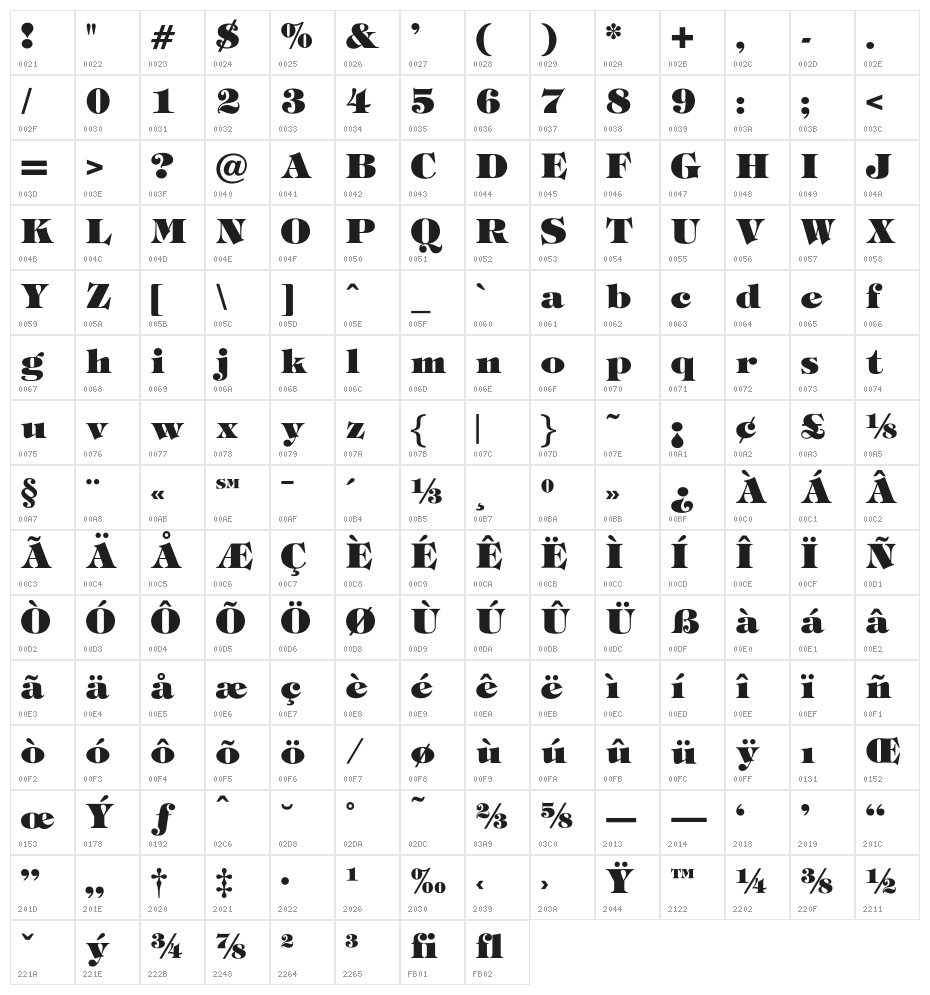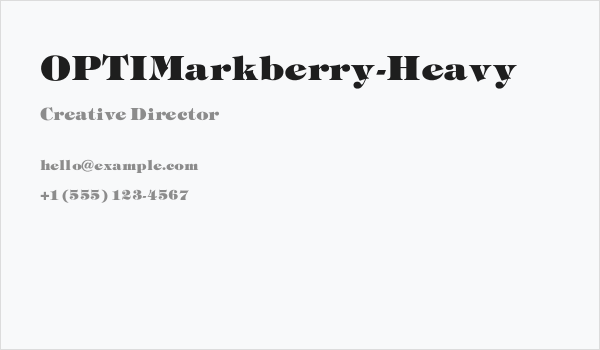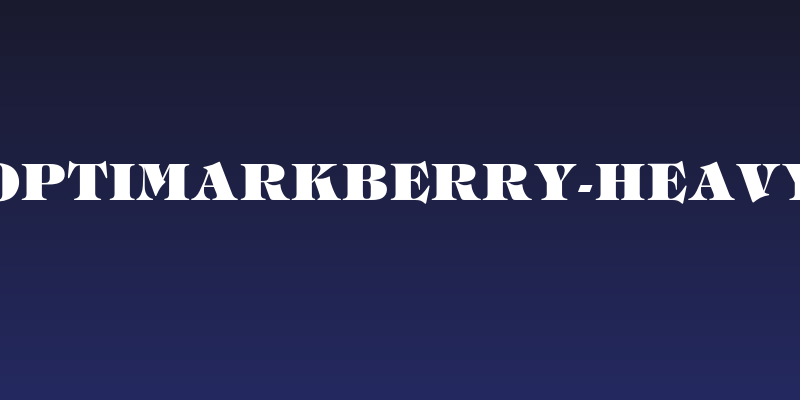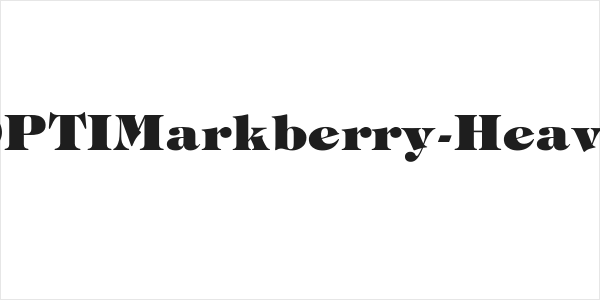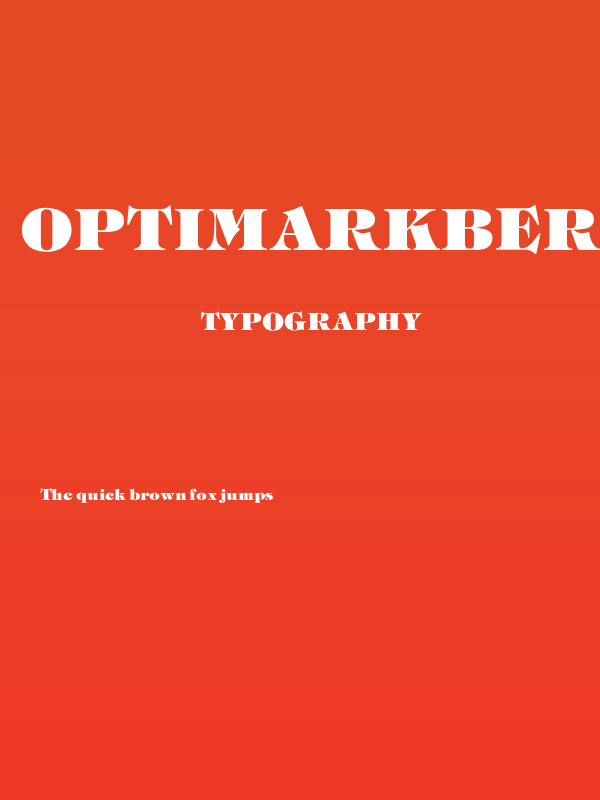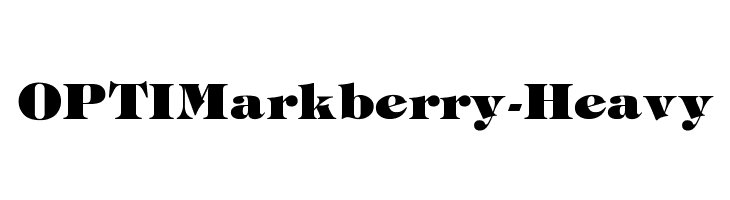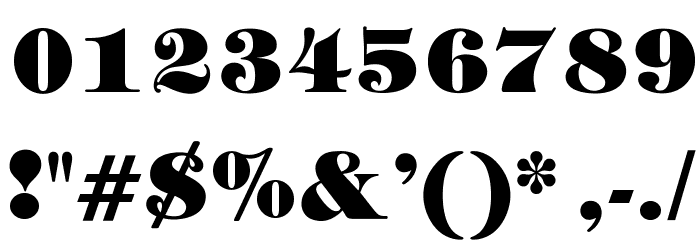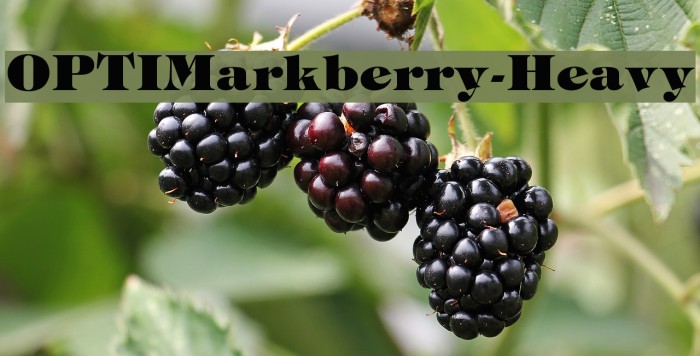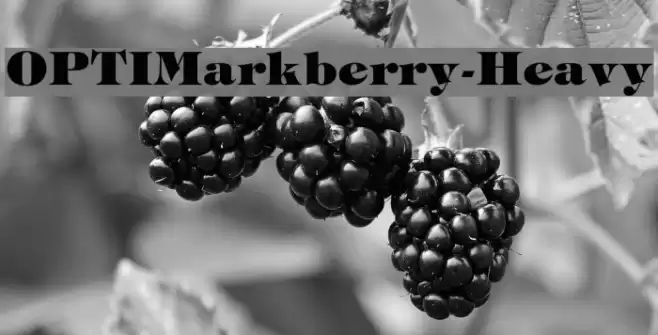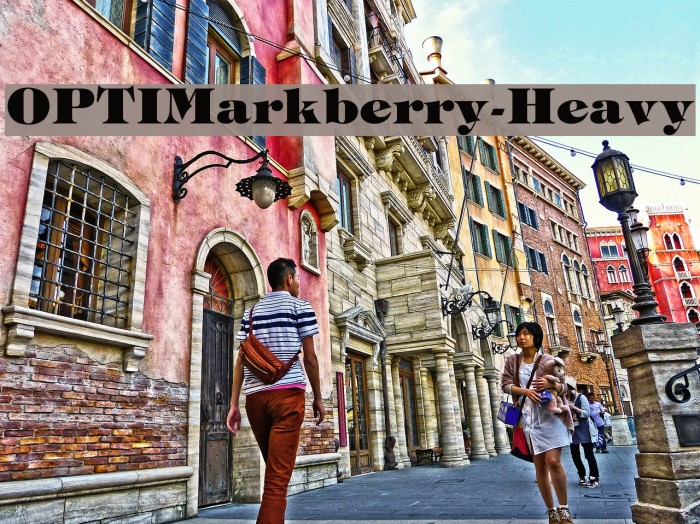
OPTIMarkberry-Heavy Font
OPTIMarkberry-Heavy Description
This font features a bold and striking design with thick, heavy strokes that convey a sense of strength and impact. The characters are crafted with a high contrast between thick and thin lines, giving them a dynamic and eye-catching appearance. The serifs are pronounced and angular, adding a touch of elegance and sophistication. The overall style is reminiscent of vintage typefaces, yet it maintains a modern flair that makes it suitable for contemporary use. The uppercase and lowercase letters are well-balanced, and the numerals are clear and distinct. Special characters are included, maintaining the bold and decorative style throughout.
| Overall Style | Vintage, Modern |
| Proposed Projects | Ideal for branding, headlines, posters, and any project requiring a strong visual impact. |